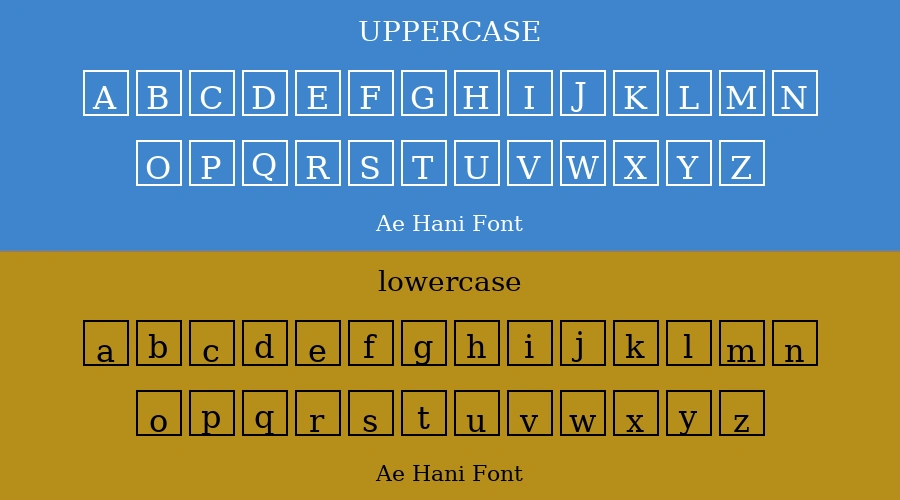
About Ae Hani Font
Designed with precision, Ae Hani Font merges organic forms with accuracy in every character. This versatility makes it particularly effective for architectural plans, where refinement and professional standards directly impact communication quality. Each letterform demonstrates meticulous craftsmanship.
Technical excellence shines through elements like expressive curves and terminal forms, enhancing typographic versatility. In pull quotes settings, Ae Hani Font proves its worth through superior readability. The thoughtful execution of ascender height and regulatory compliance ensures professional results.